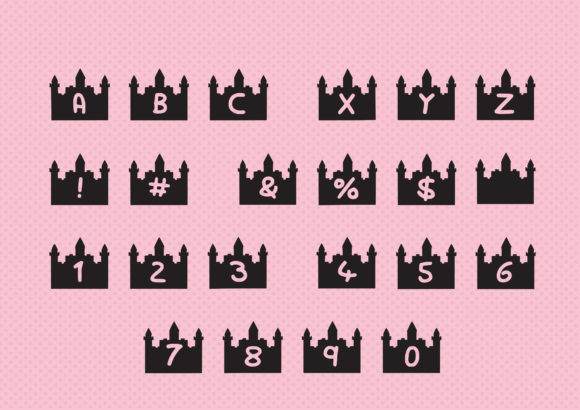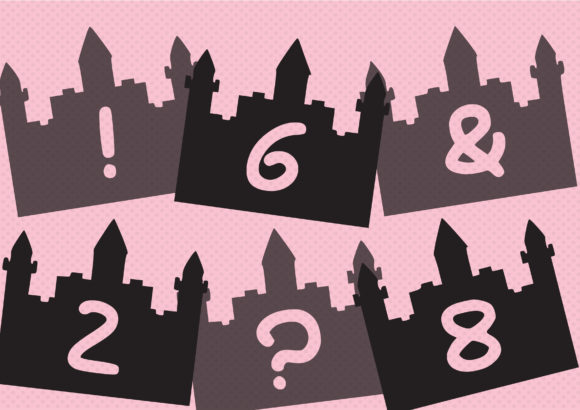
Introduction to Play Fairy Castle Font
Play Fairy Castle is a cool looking and interesting decorative font, featuring a castle on each character.
Why Choose Play Fairy Castle Font?